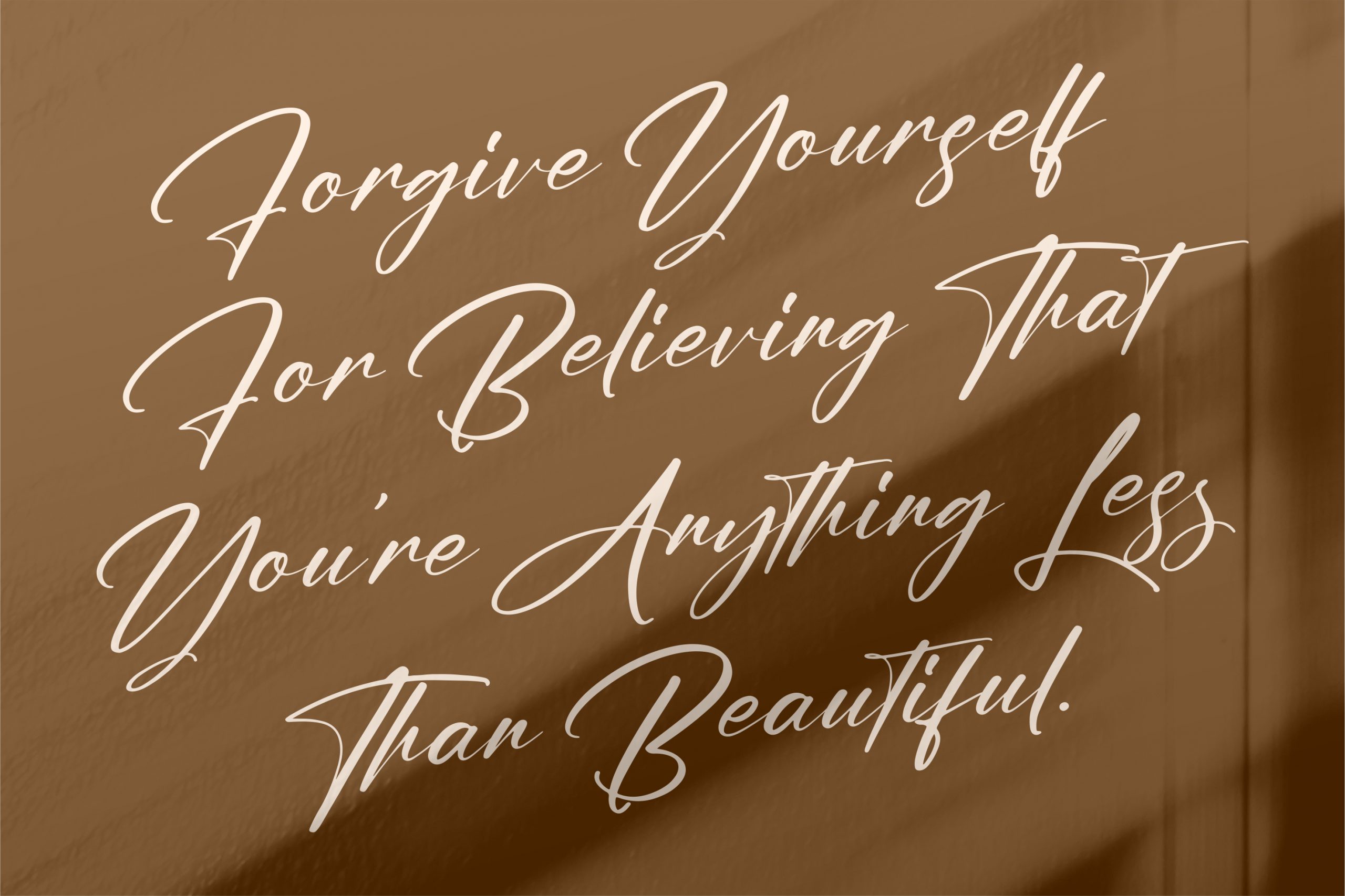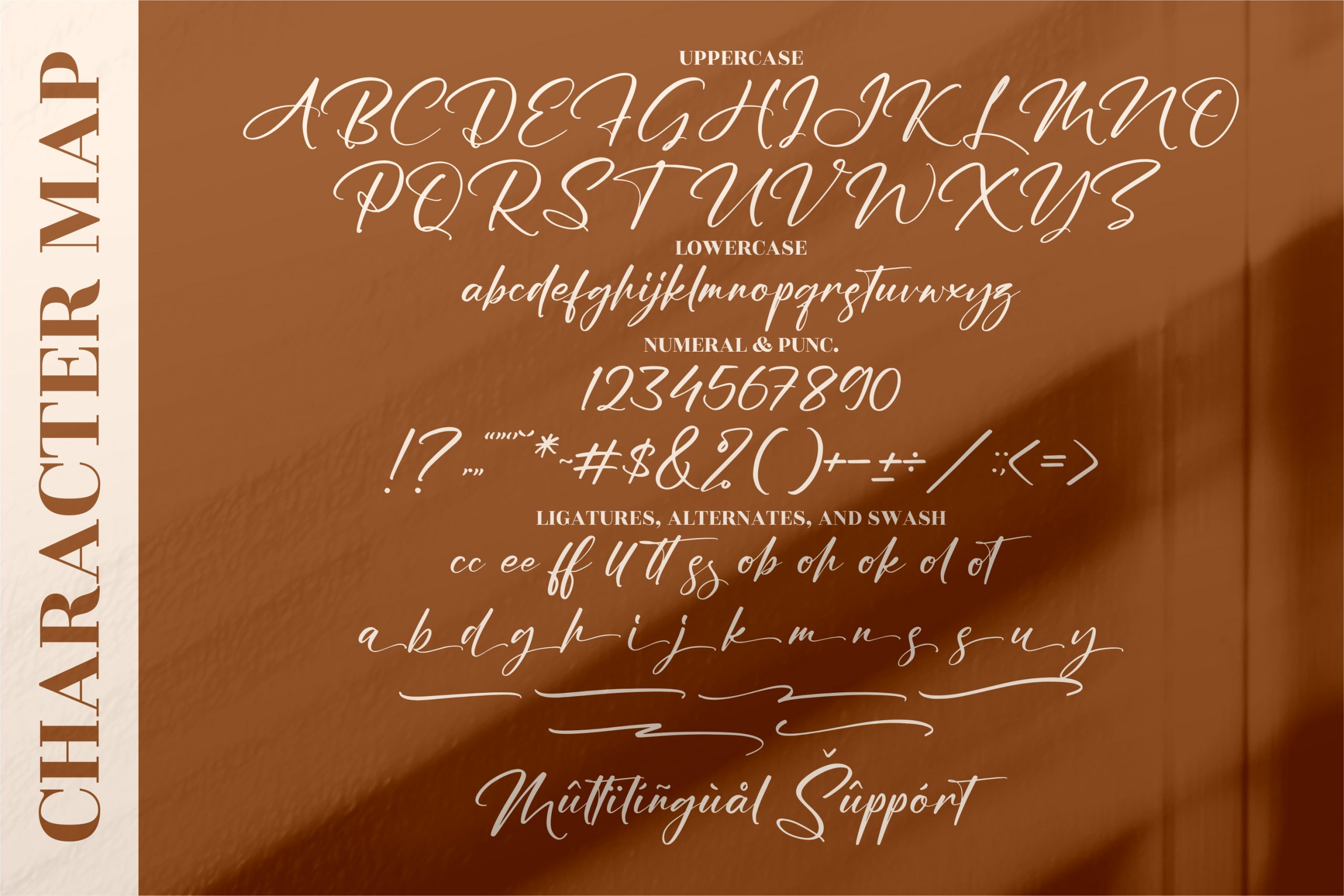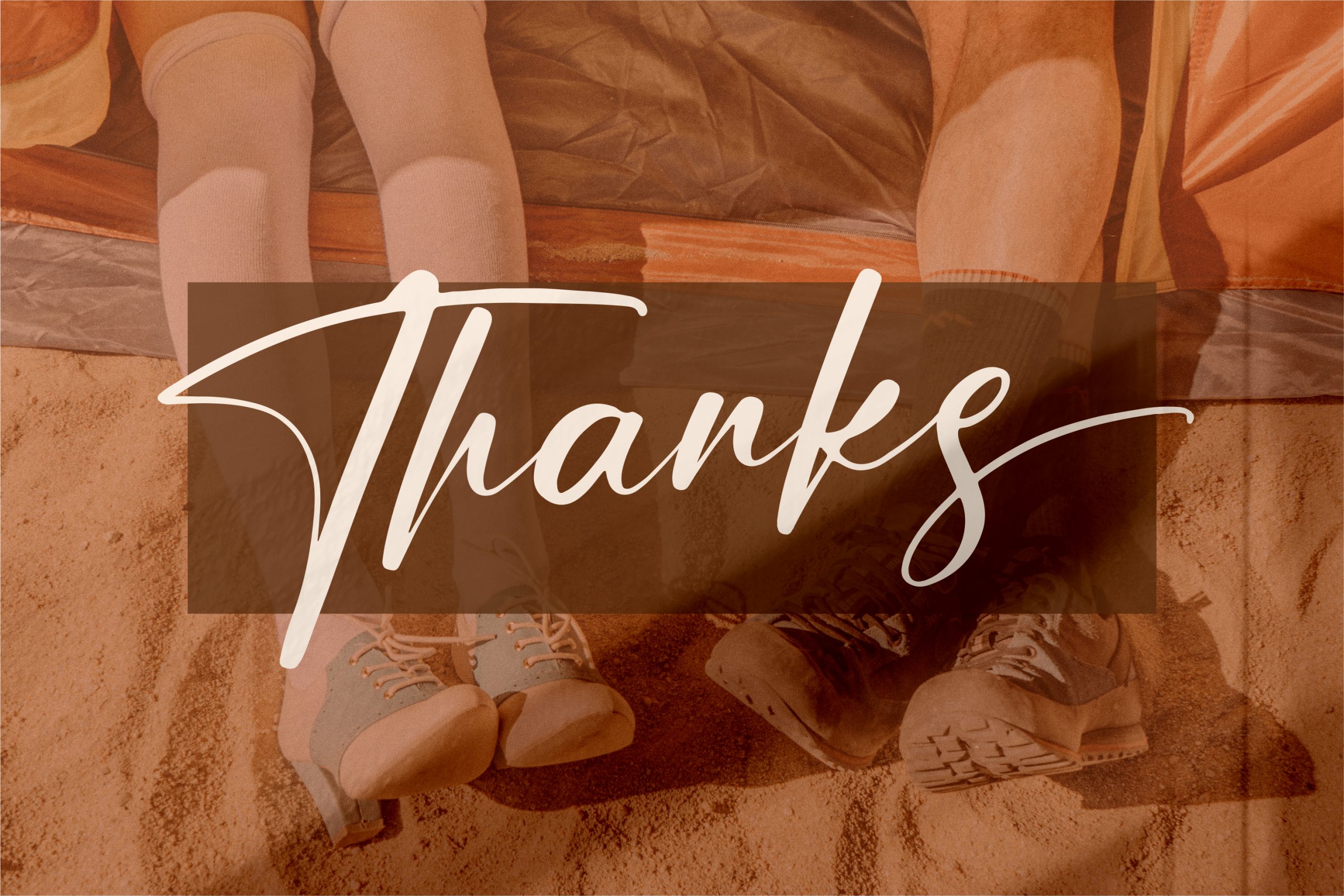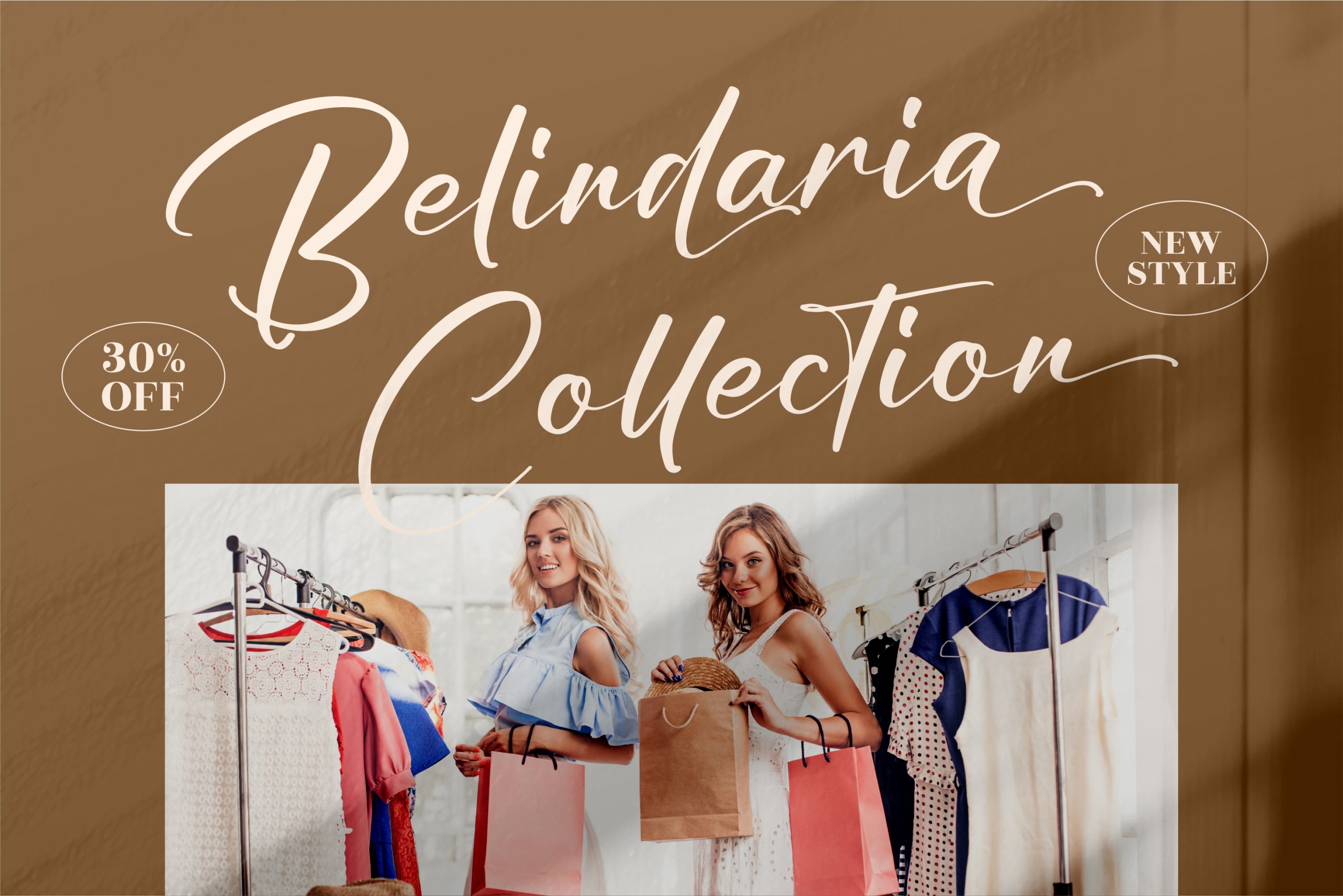
Australia Custom Font
Australia Custom Script Font. This is a premium signature font, suitable for any projects such as: logos, branding projects, homeware designs, product packaging, mugs, quotes, posters, shopping bags, t-shirts, book covers, name card, invitation cards, greeting cards, label, photography, watermark, special events, and all your other luxury projects that need a premium signature taste.